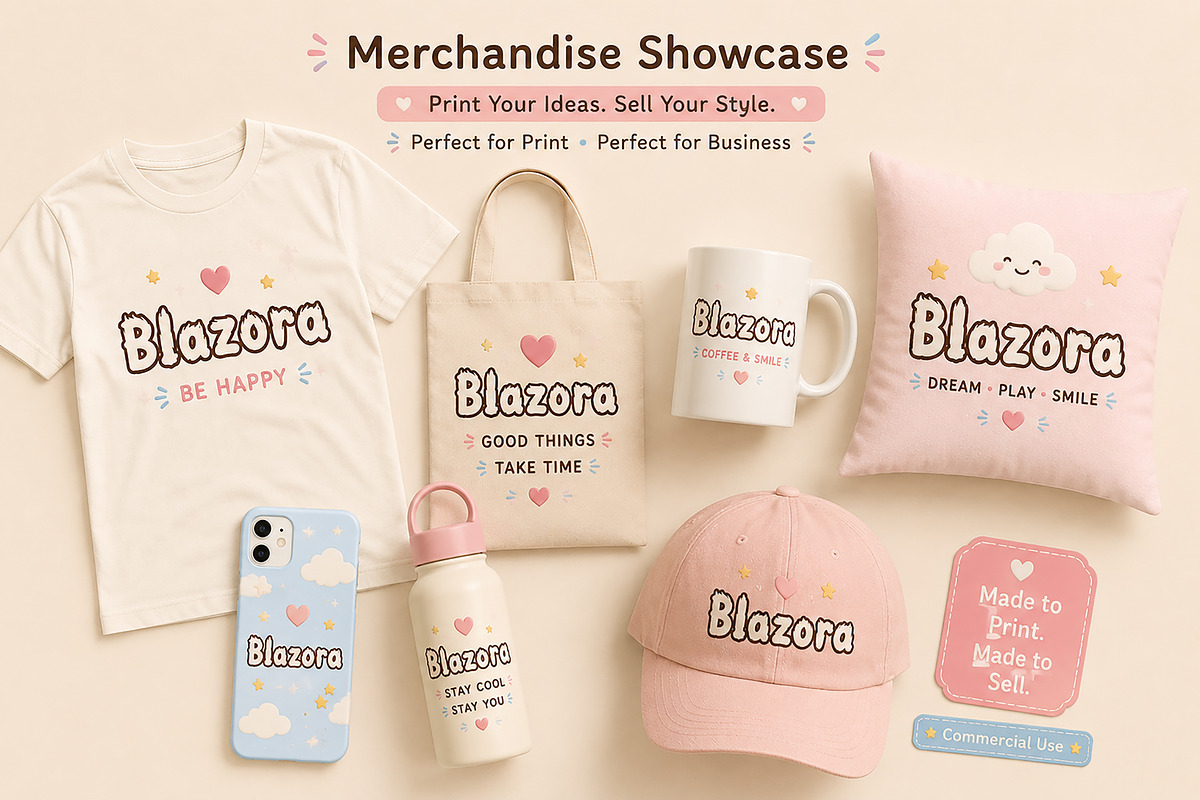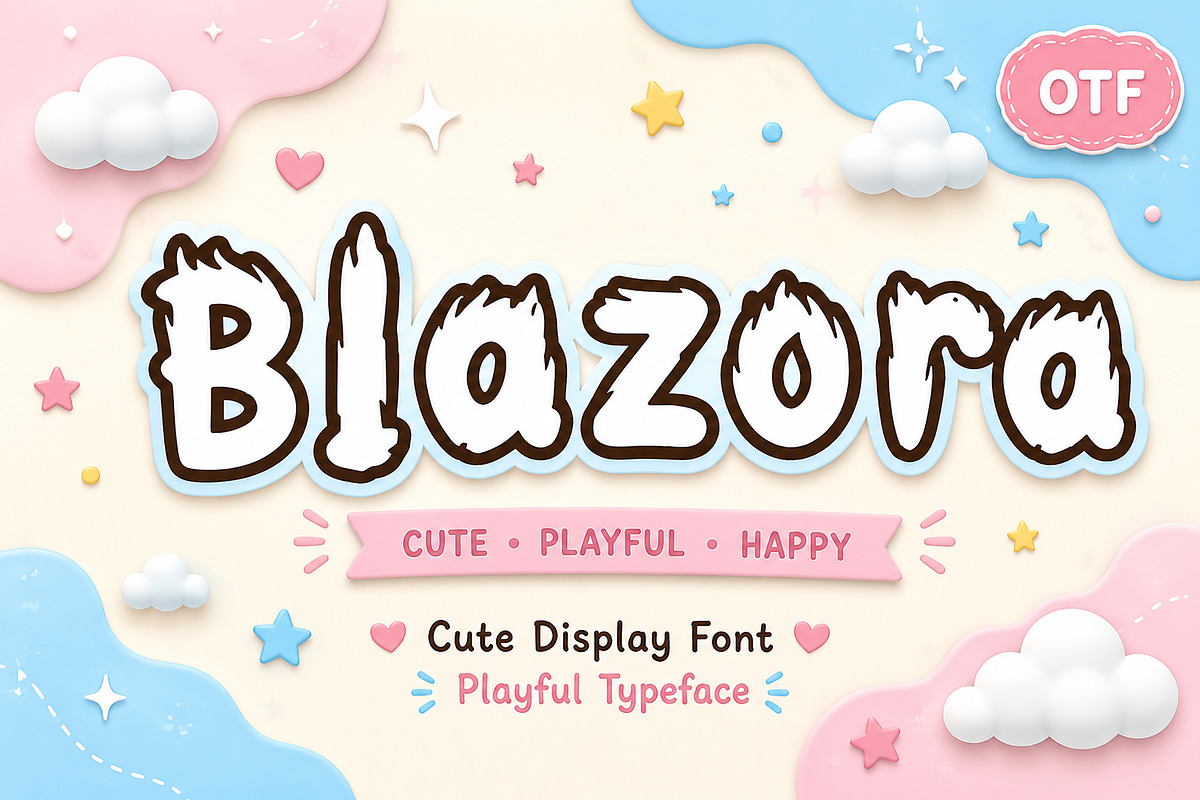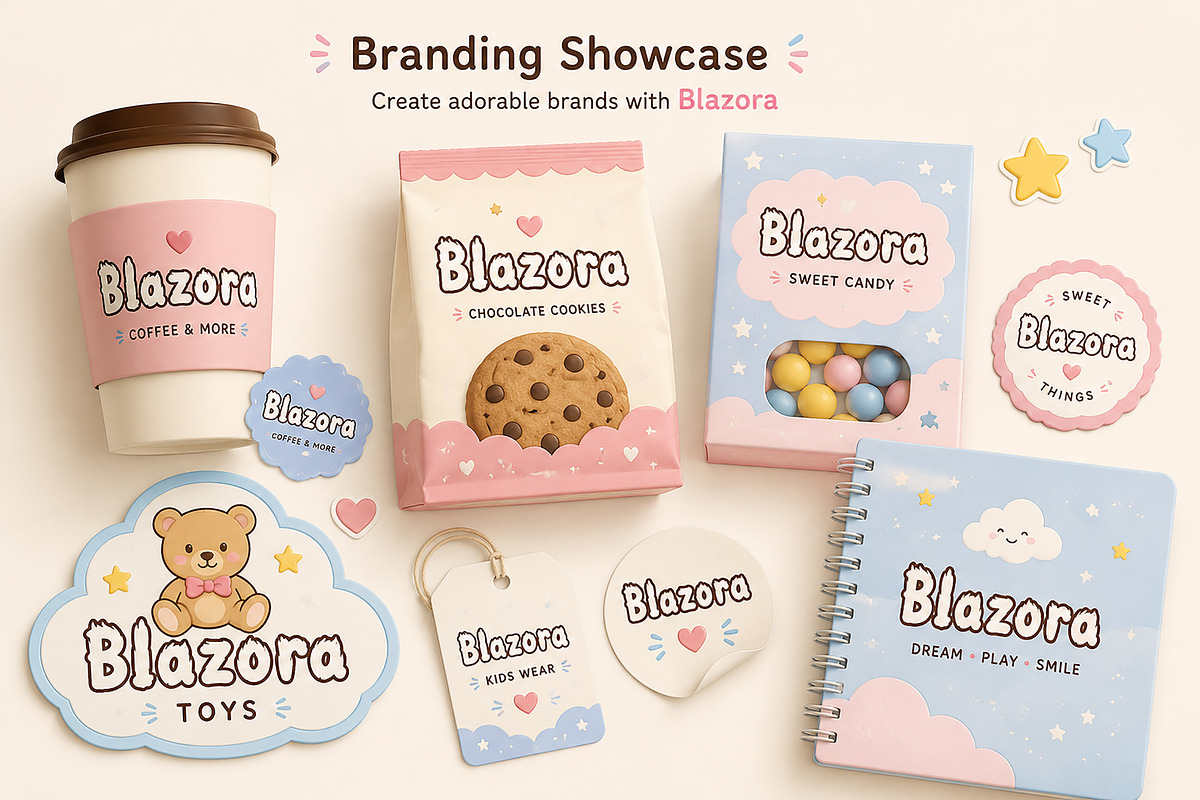
Blazora
Blazora – Cute Fluffy Display Font
Bring warmth, fun, and personality to your creative projects with Blazora, a cute fluffy display font inspired by soft clouds, fuzzy textures, and playful hand-drawn lettering. Its bold, rounded characters create a cheerful and friendly look that instantly grabs attention while remaining easy to read.
Perfect for children's designs, playful branding, merchandise, packaging, and social media graphics, Blazora adds a joyful and whimsical touch to every project.
Whether you're designing a toy brand, candy packaging, nursery decor, birthday invitations, or fun apparel, this font helps your work stand out with a unique handmade charm.
Cute Display Typeface
Fluffy Hand-Drawn Style
Bold & Playful Letterforms
Uppercase Letters
Lowercase Letters
Why You'll Love Blazora
Blazora combines a soft, adorable personality with bold display lettering, making it an excellent choice for creative projects that need a fun and memorable look. Its unique fluffy appearance gives every design a playful character that is perfect for both digital and print applications.